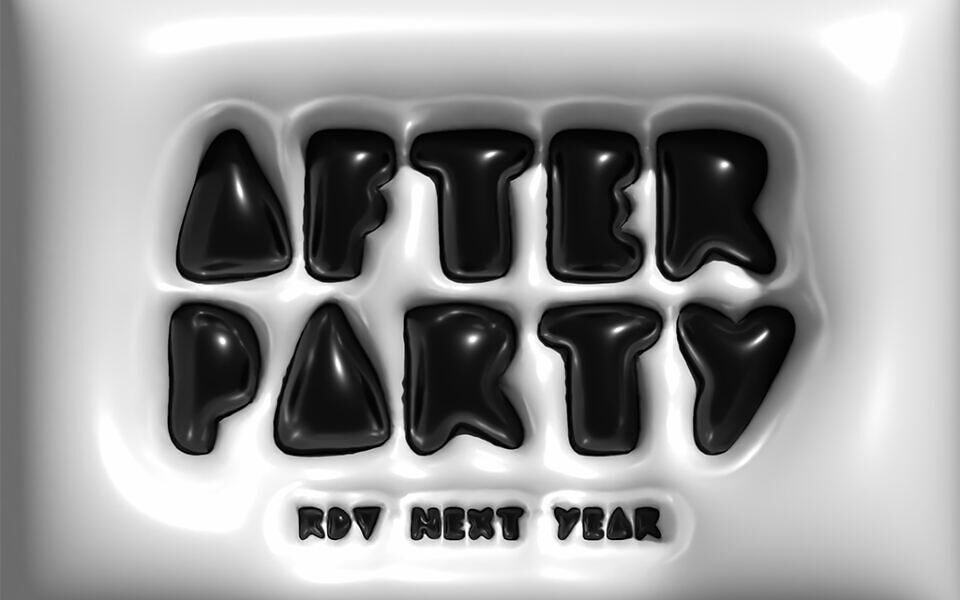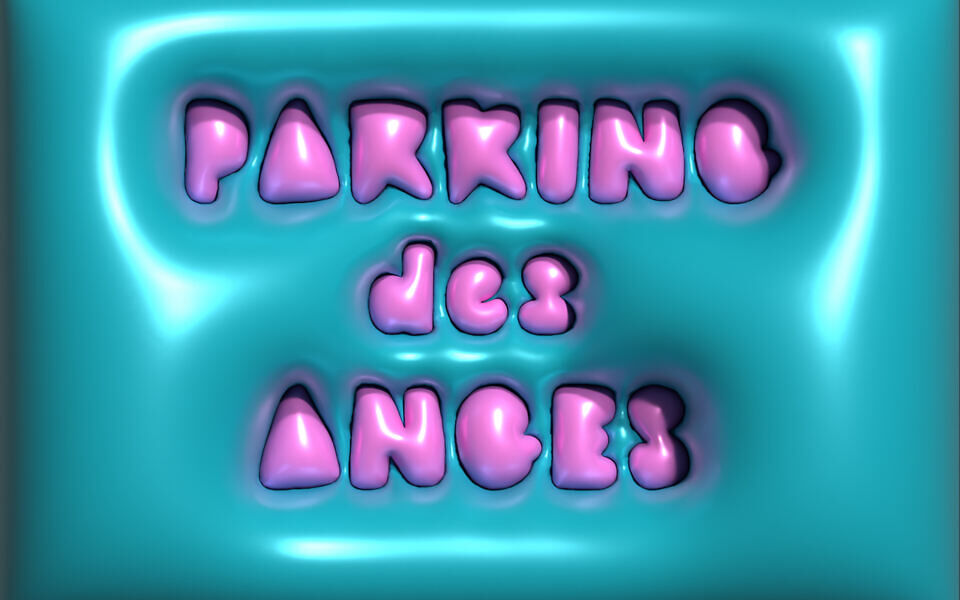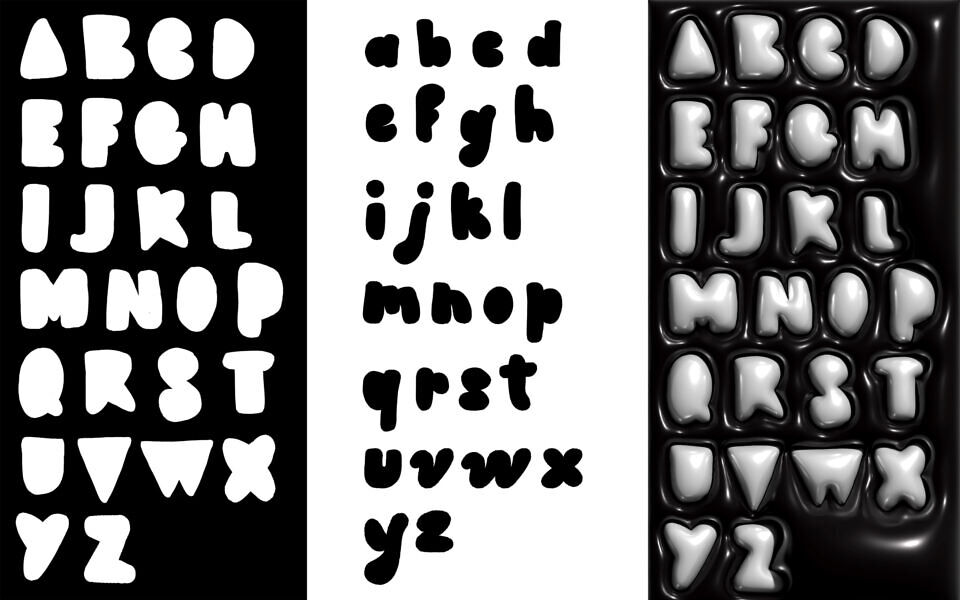
Komikamikaze is a font which revisits typography through graffiti, to question the relationship between different worlds which are inspired by each.
This typeface allows you to design with fresh, bold characters. Uppercase letters deliver a strong message, while lowercase letters offer a smooth, handwritten style. It’s also ideal for creating a bubble effect, having been designed with this purpose in mind.